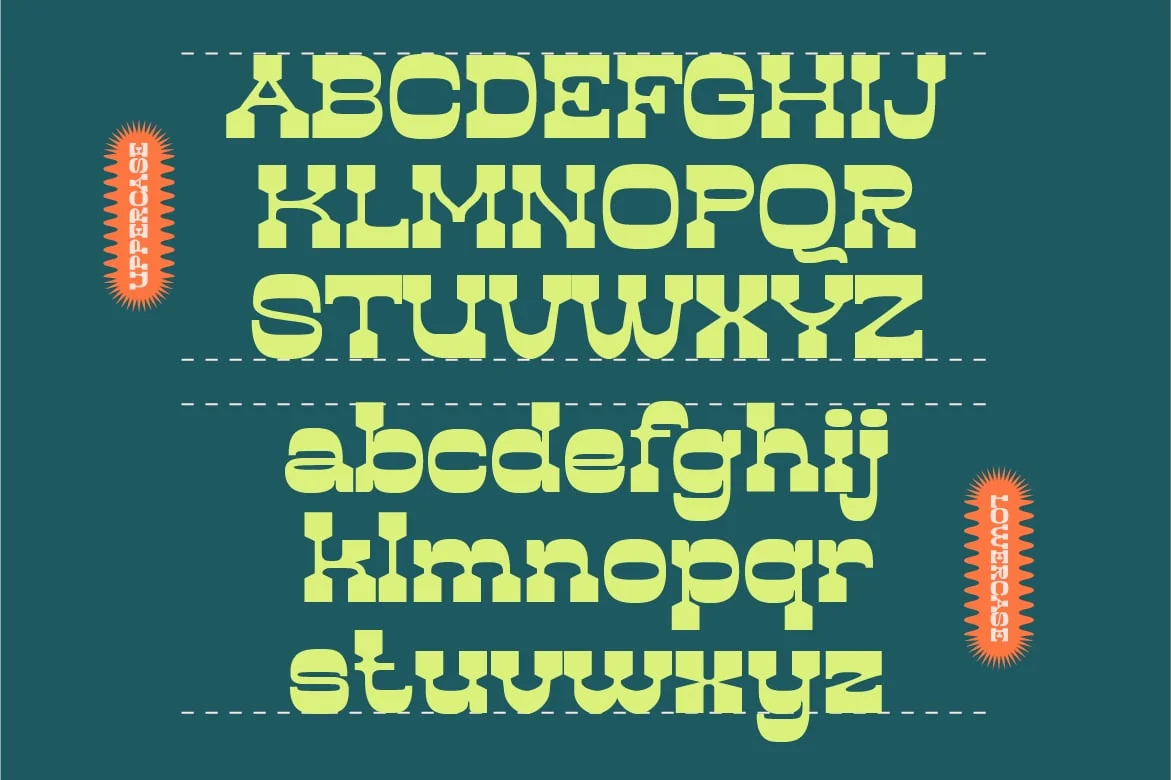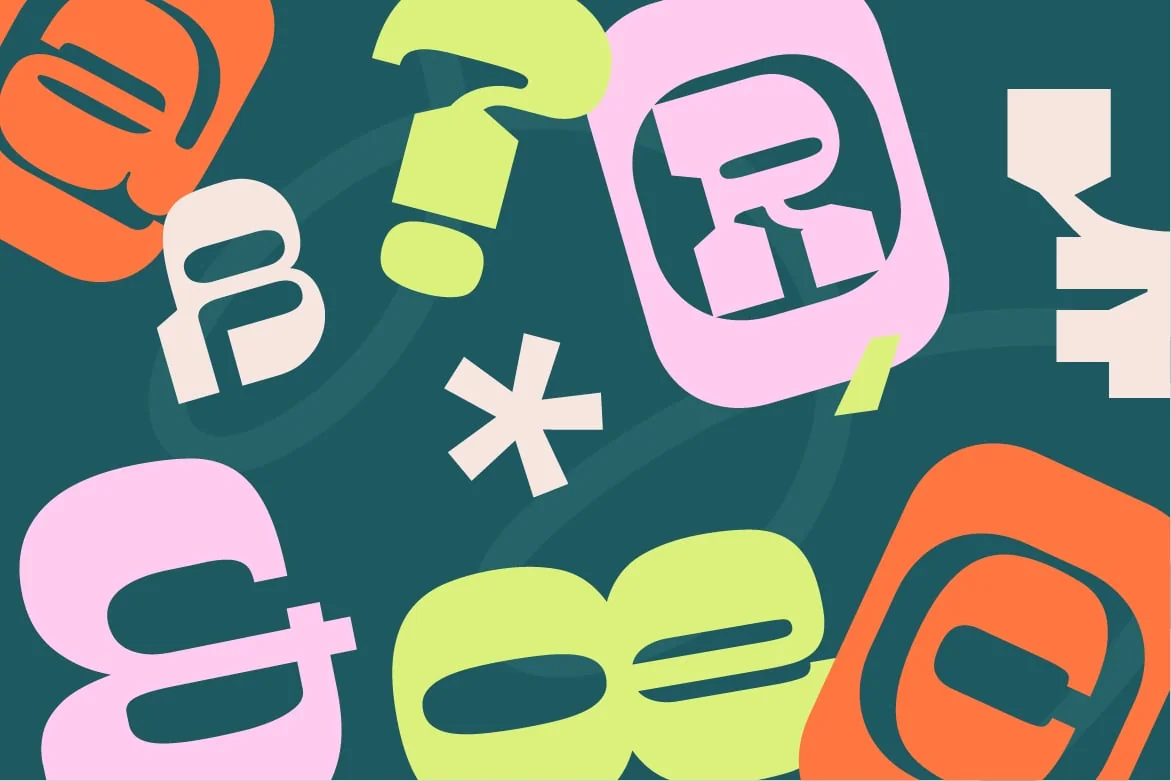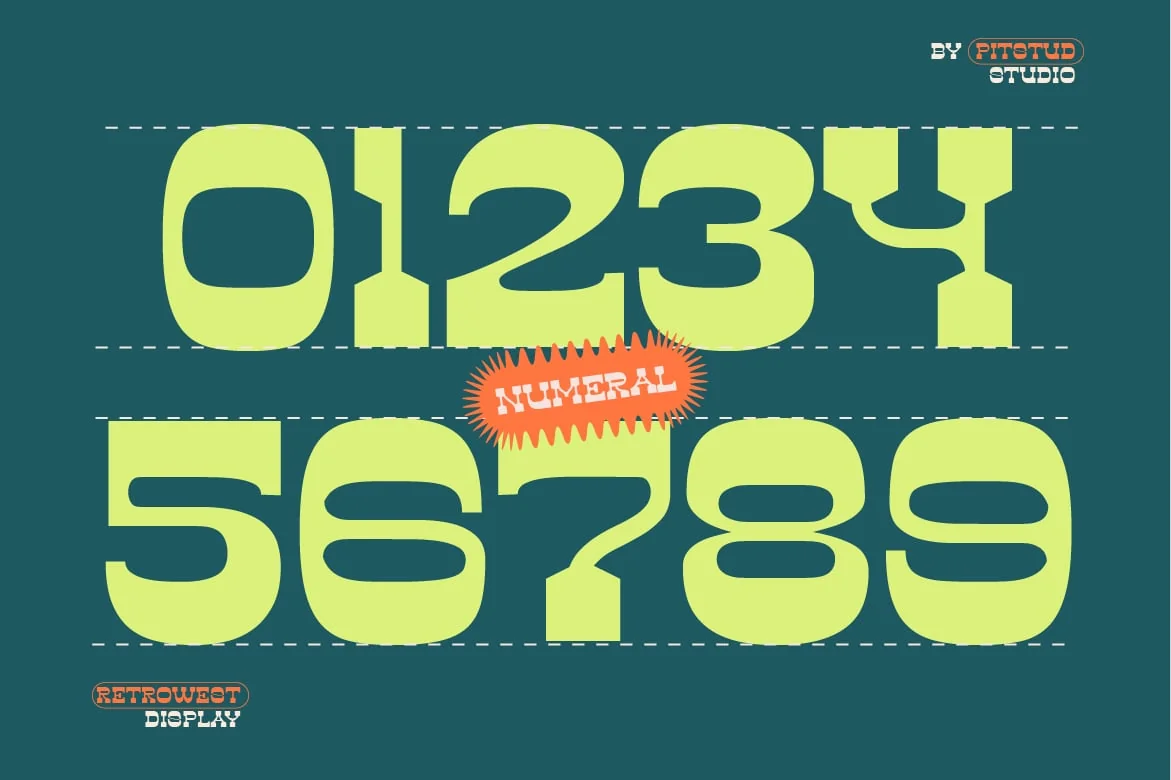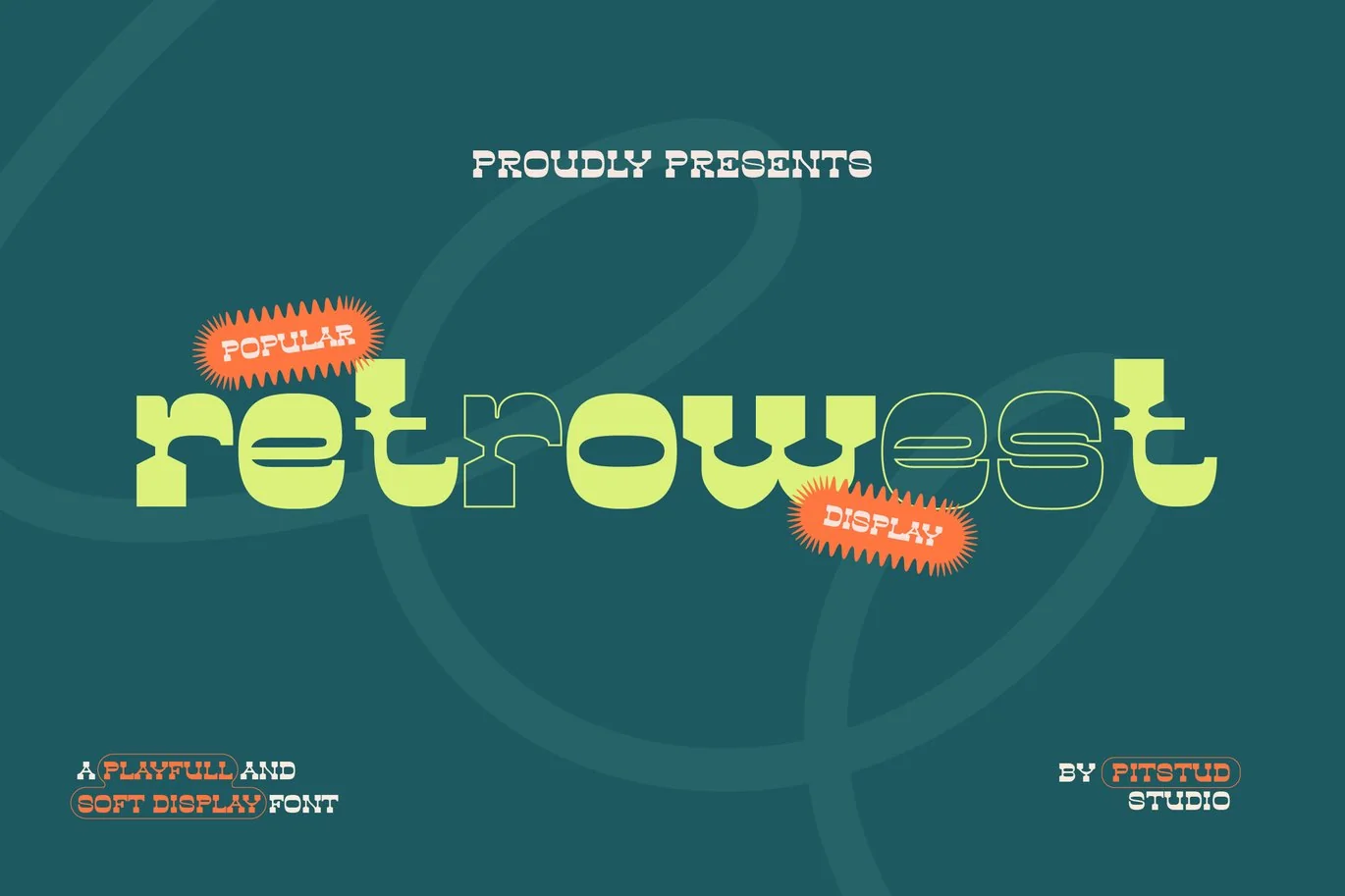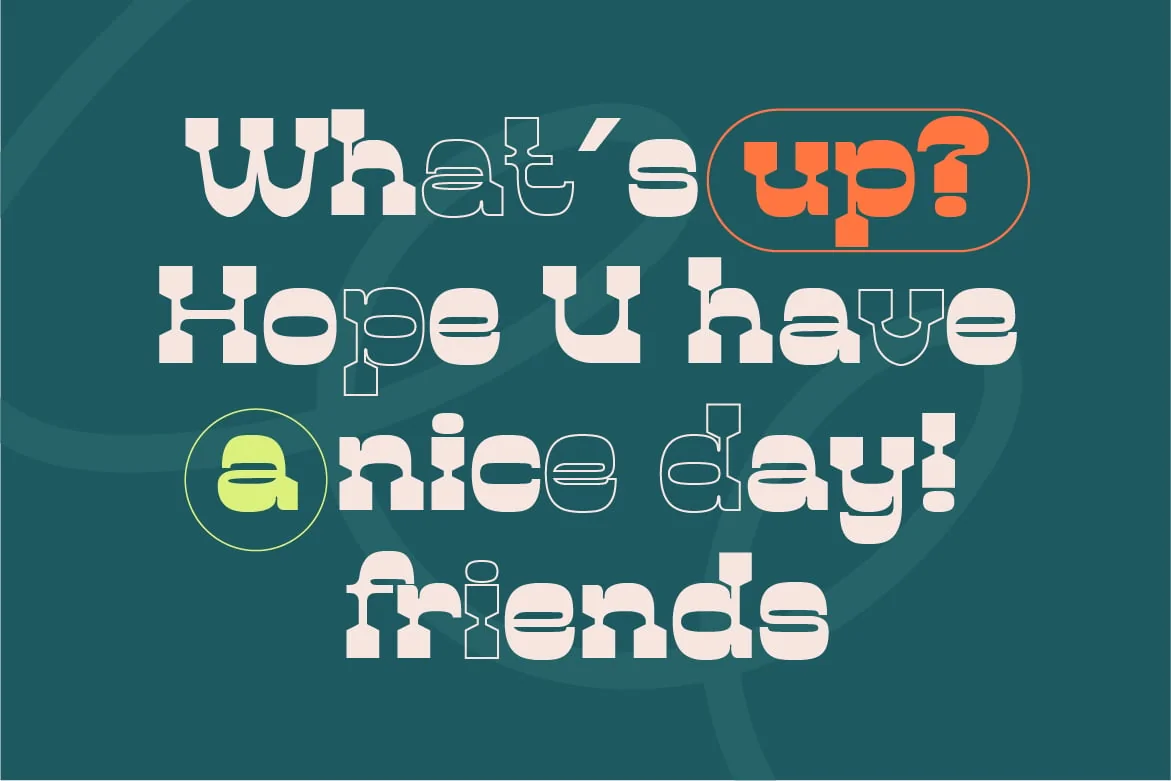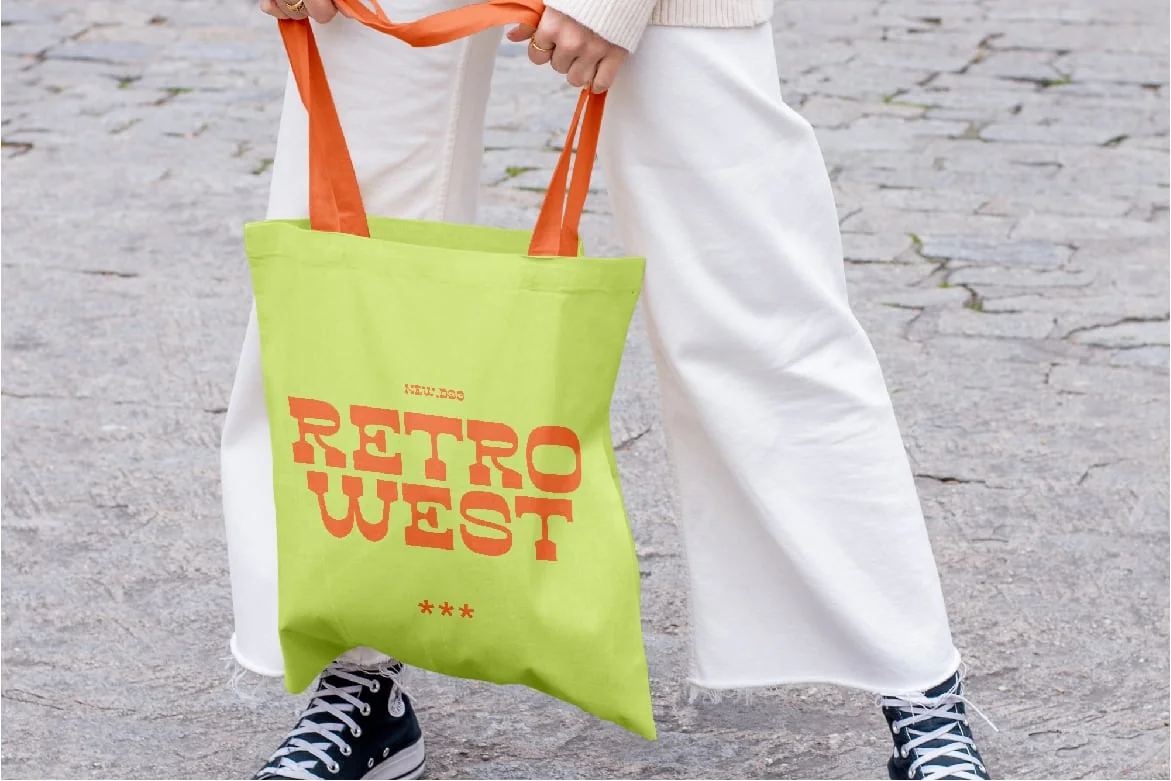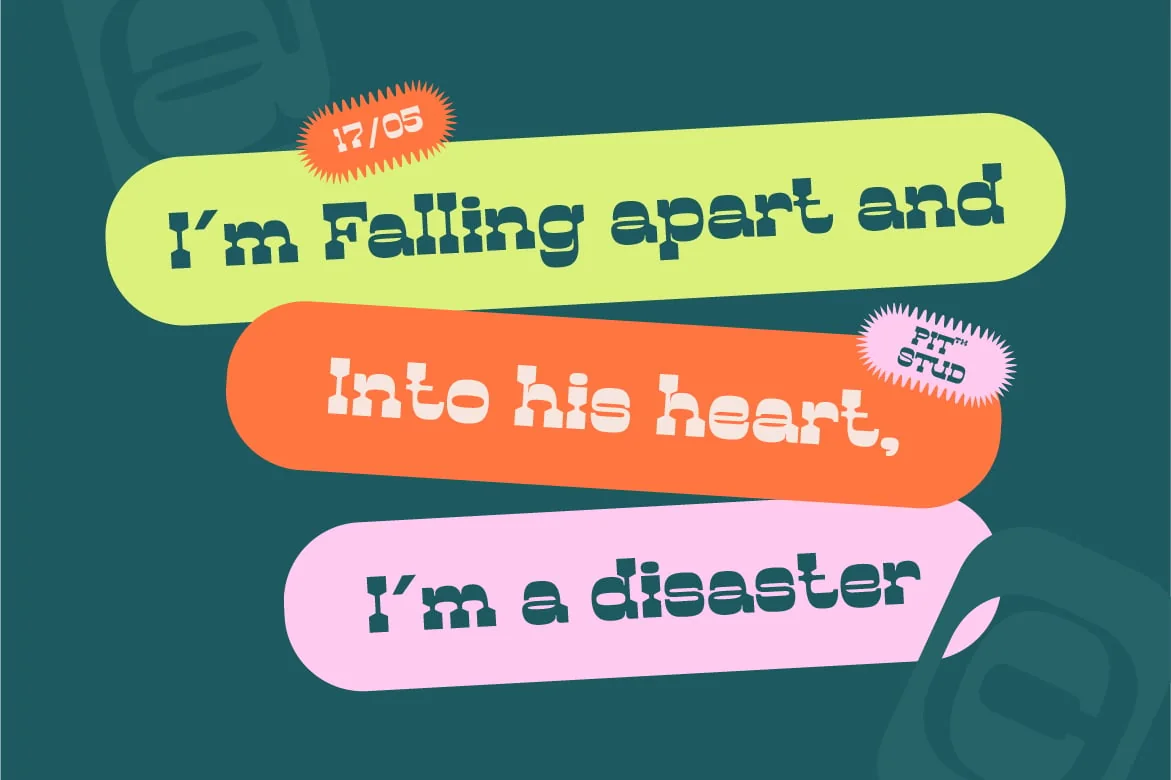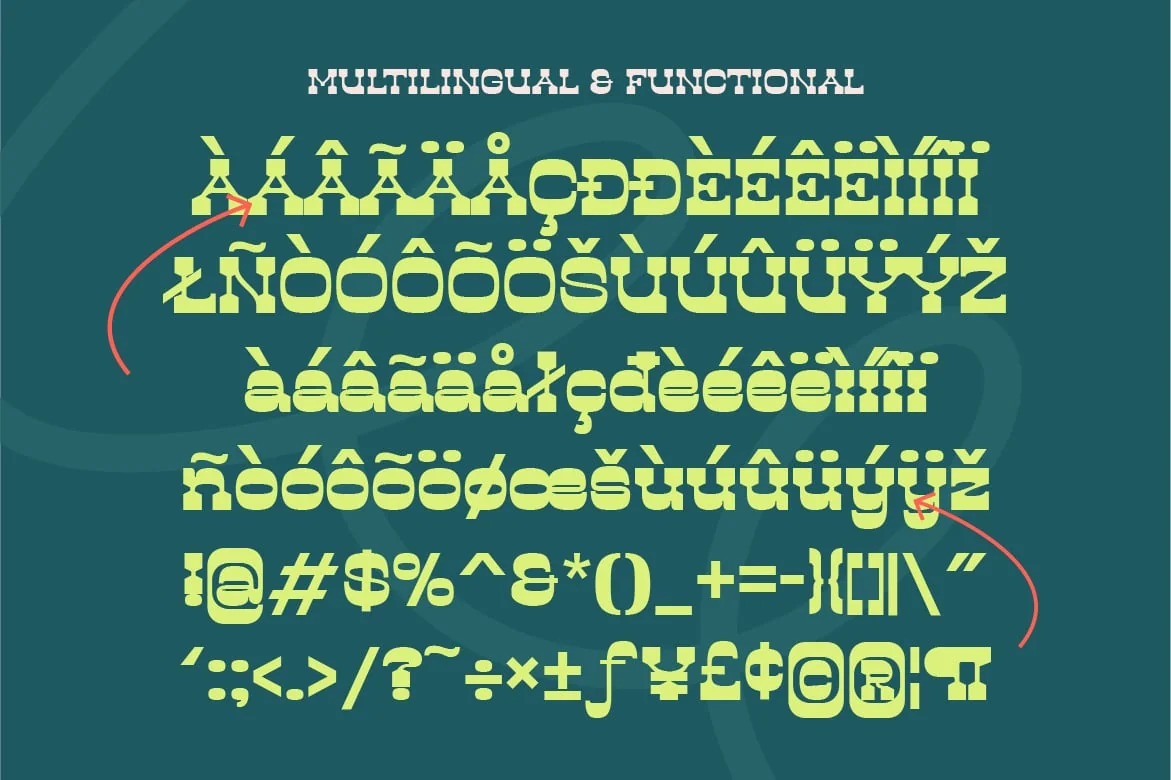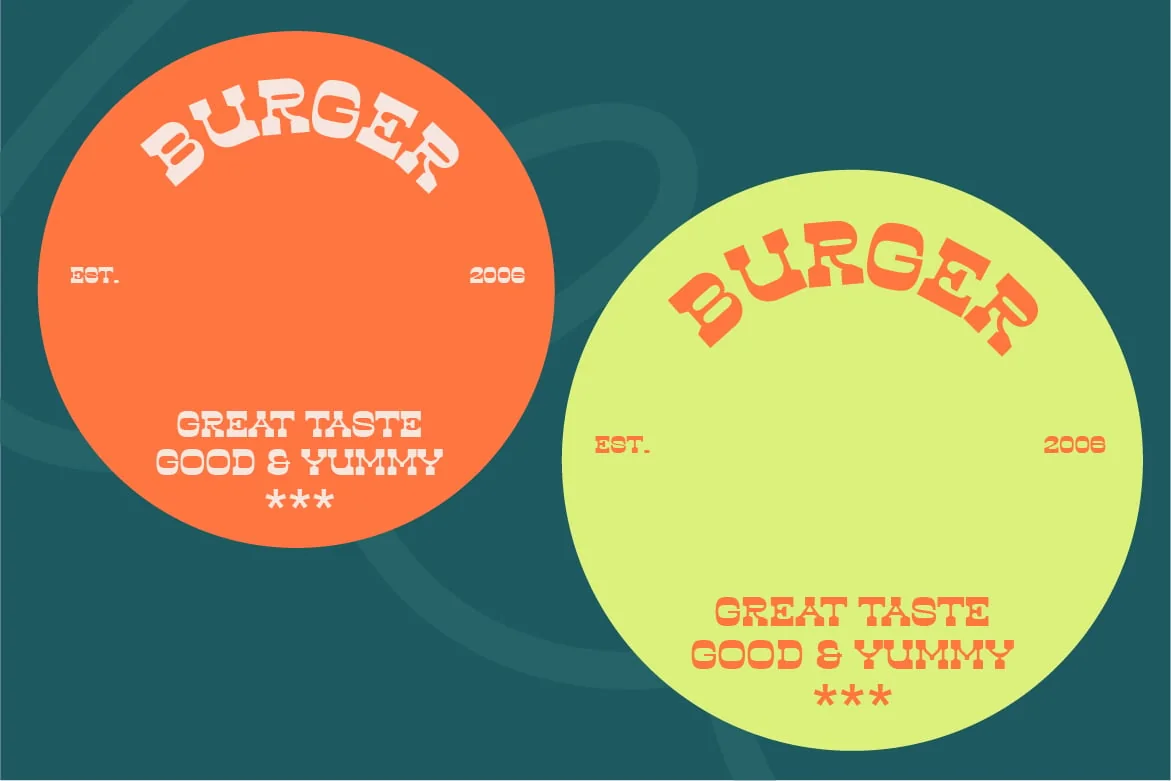
Retro Western Font – Retrowest
Retrowest – Retro Western Font
Step back in time with our Retrowest – Retro Western Font, a beautifully crafted typeface inspired by the rugged aesthetics of the Wild West! Perfect for creating a nostalgic vibe in your designs, this font adds a touch of classic charm and adventure to any project.